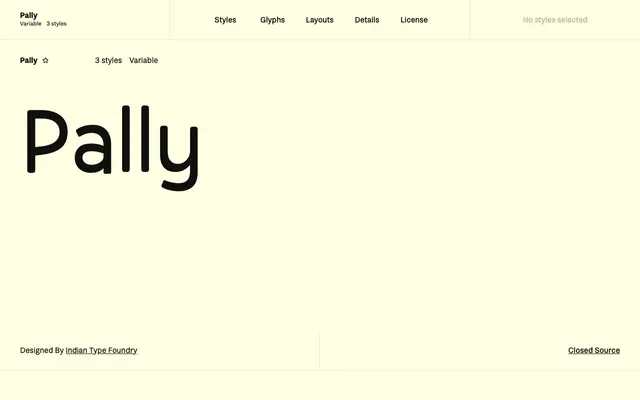
Pally
Fontshare · Jean-Baptiste Morizot · 2021
A deliberately wobbly, informal sans-serif by Jean-Baptiste Morizot, with asymmetric letterforms and atypical stroke angles that give it a playful, characterful rhythm.
Designed by Jean-Baptiste Morizot and released through Fontshare in 2021, Pally pairs monolinear strokes with intentionally uneven letterforms: the left and right sides of many glyphs differ in size and height, strokes meet at unexpected angles, and the ascenders of lowercase letters clear the cap height. The character set includes a double-storey 'a', a single-storey 'g' and a Jensonian 'e', and the family is available as three static weights plus a variable font covering 135 languages. It suits headlines, signage and editorial contexts aimed at children's services or informal branding where typographic eccentricity is an asset.
Pally is classified as a sans-serif with a highly informal, wobbly character. Its monolinear strokes, asymmetric letterforms and atypical stroke angles place it firmly outside neutral grotesque or geometric territory.